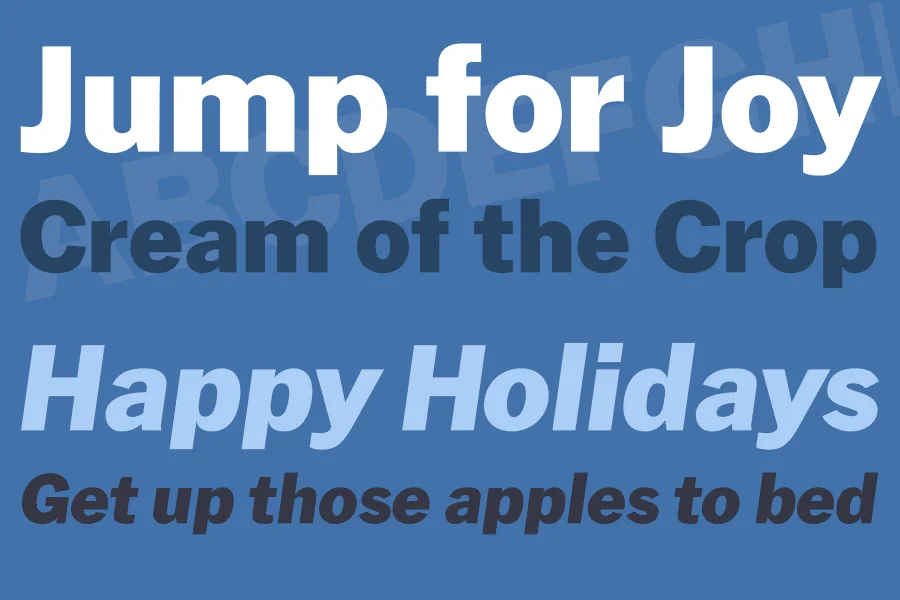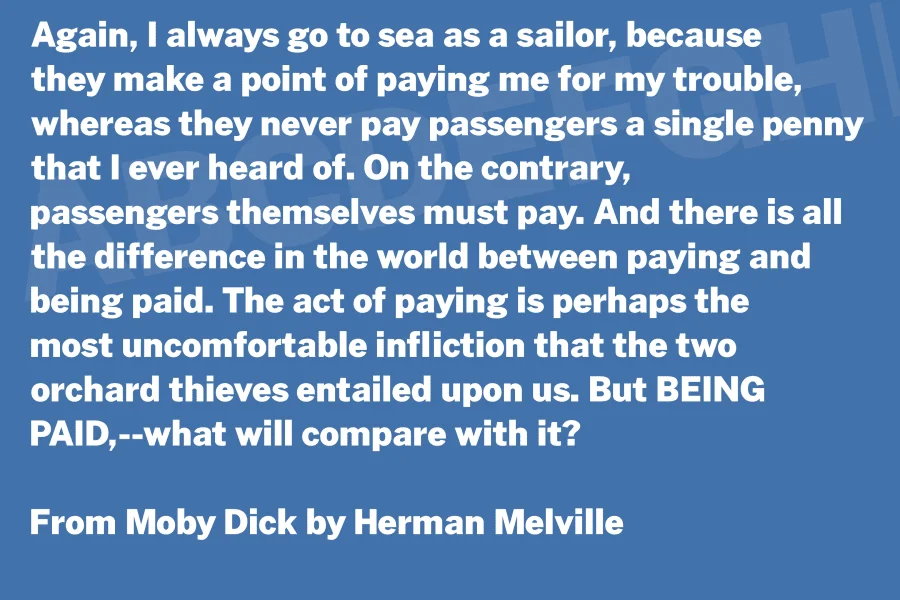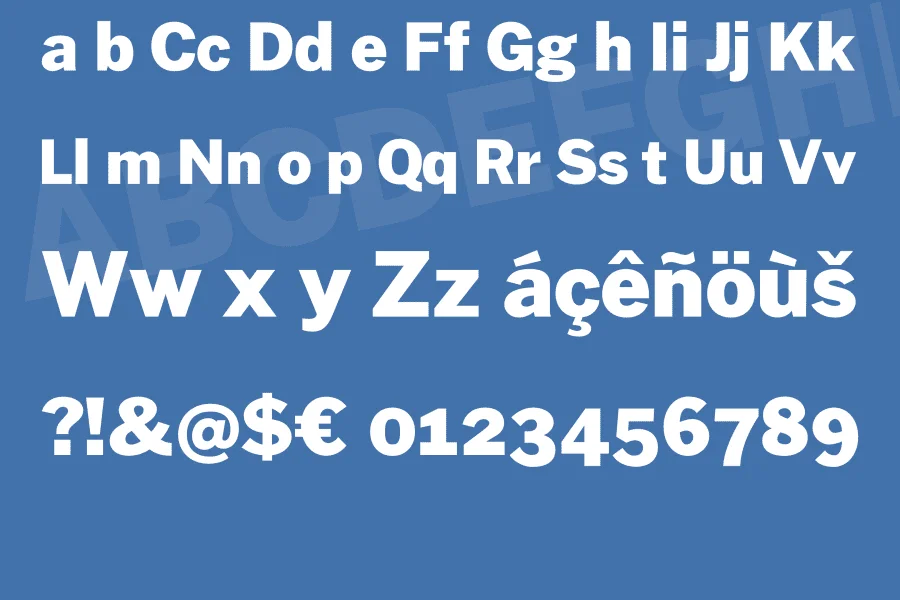
Cheyenne Sans is a rotesk sans-serif font developed from 18Franklin (which is currently known as Public Sans), Libre Franklin, Roboto Flex, and General Gothic fonts.
Modifications are:
- Imported figures (0-9) from General Gothic;
- Imported Greek/Cyrillic support from Roboto Flex;
- Some other fixes.
The following language blocks are fully supported: Afrikaans, Baltic, Basic Latin, Basic Greek, Basic Cyrillic, Extended Cyrillic, Catalan, Central European, Dutch, Esperanto, Euro, Igbo Onwu, Romanian, Turkish, Vietnamese, and Western European.